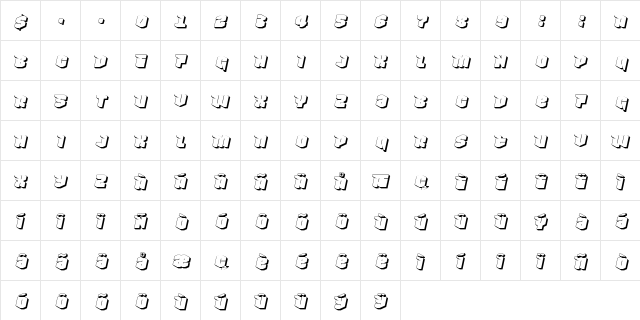
Nowy Geroy 4F Shadow Italic
| Foundry | Sergiy S. Tkachenko |
| Designer | Sergiy S. Tkachenko |
Design Context for Nowy Geroy 4F Typeface
Nowy Geroy 4F brings ornamental detail and strong personality to headlines and identities, where visual impact matters more than quiet functionality. The dynamic lean of this cut emphasises speed and emphasis in any layout.
Font Pairing: Pair with a clean neutral sans-serif for body copy to let Nowy Geroy 4F's character lead without overwhelming the composition.
Pro Tip: Treat Nowy Geroy 4F as the centrepiece of your typographic hierarchy. One strong heading set in a decorative face can carry an entire layout.